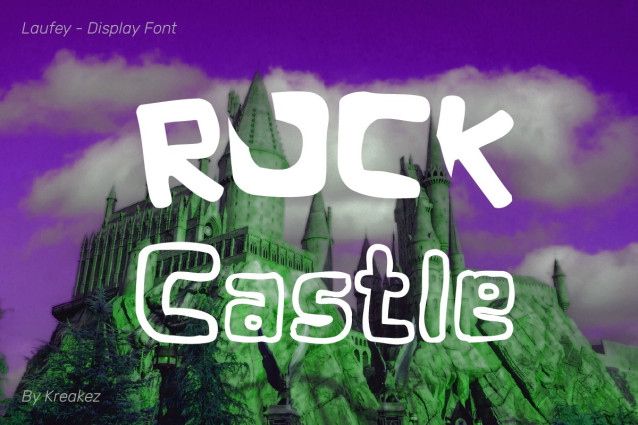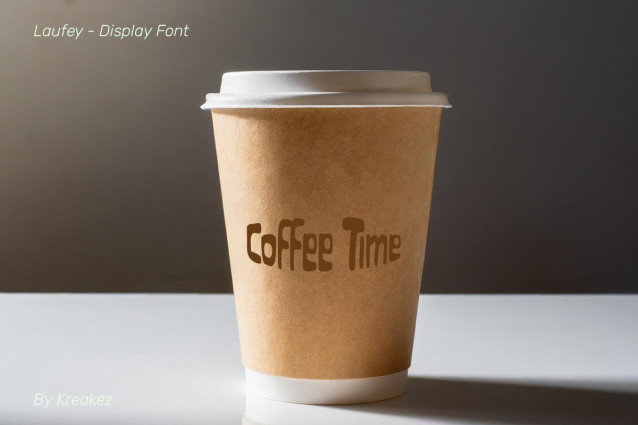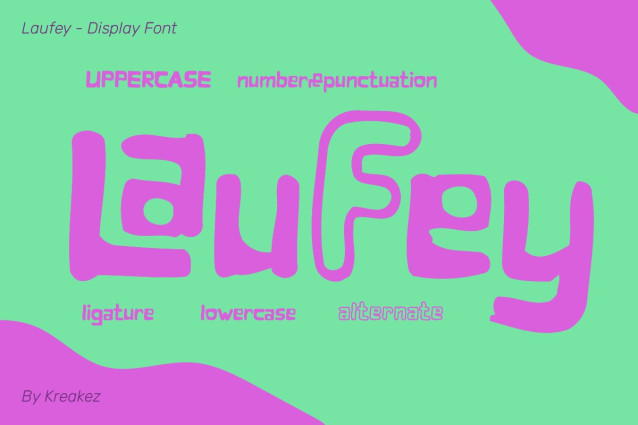
Laufey Display Font
Laufey Display Font is a vibrant and playful display font that captures a fun and laid-back atmosphere. With its unique ligatures, alternate characters, and bold yet smooth letterforms, Laufey stands out in any project that calls for a whimsical and casual feel.
Designed for headlines, posters, and branding, Laufey brings personality to your designs while remaining legible and approachable. It includes both uppercase and lowercase letters, punctuation, numbers, and a variety of ligatures, making it versatile for creative projects like fashion designs, children’s books, or event posters.
Whether you’re looking to add a bold statement to your coffee shop’s branding, or creating a rock concert poster, Laufey’s alternate styles and rounded curves will keep your audience engaged. The font strikes the perfect balance between artistic flair and readability, making it the ideal choice for those seeking a lighthearted yet professional design.
Feel free to explore how Laufey enhances your projects with its fancy yet relaxed charm!